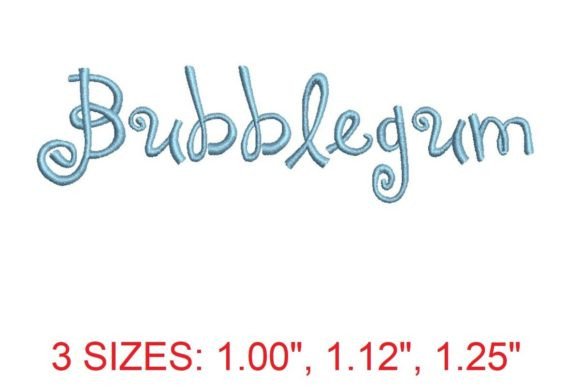
Bubblegum Font: A Sweet Addition for Your Etsy Shop
As an experienced embroidery seller, I'm always on the lookout for fresh, versatile designs that can elevate my product offerings. The Bubblegum Font from Creative Fabrica caught my attention for its playful yet professional aesthetic. With meticulous stitch work and flawless digitization, each creation showcases impeccable craftsmanship. Whether you're a seasoned embroiderer or a beginner, Bubblegum empowers you to add a touch of whimsy to your handmade products.
What Makes Bubblegum Font Unique?
Bubblegum Font exudes a fun, youthful vibe that feels both modern and nostalgic. Its rounded, bubbly letters give it a soft, approachable look that’s perfect for a range of products. This design isn’t just cute—it has the potential to make your items stand out in a crowded market. It's ideal for anything that needs a little extra charm, whether it's a personalized gift or a trendy tote bag design.
The font’s visual personality leans toward playful and feminine, making it especially appealing for back-to-school items, baby embroidery, and seasonal merchandise. However, its clean lines and high-quality digitization also allow it to blend well with more sophisticated styles, offering versatility for different customer segments.
Best Suited For: Back To School & Personalized Gifts
Given its title and overall style, Bubblegum Font is particularly well-suited for back-to-school products. Think embroidered sweatshirts, backpacks, and lunch boxes—items that parents and kids alike would find appealing. The font’s readability at smaller sizes makes it a great choice for tags, name tags, and custom apparel labels.
It also shines as a personalized gift option. Embroidered baby blankets, kitchen towels, and aprons featuring this font can be tailored to individual preferences, adding a unique touch that customers will appreciate. The font’s softness pairs well with pastel thread colors, which can enhance the overall aesthetic of these items.
Supporting Product Ideas
Bubblegum Font can support a wide array of product ideas, from Etsy listings to craft fair items. Here are some specific ways it can help:
- Boutique merchandise: Use it on embroidered patches, pillow covers, and caps to create a cohesive, stylish line of products.
- Small batch apparel: Add it to t-shirts, sweatshirts, and tote bags for a custom look that appeals to fashion-conscious buyers.
- Handmade home decor: Incorporate it into kitchen towels, wall art, and decorative pillows for a sweet, personalized touch.
- Seasonal collections: Pair it with holiday-themed elements to create limited-edition items that can drive sales during specific times of the year.
Enhancing Your Listings and Marketing
One of the key benefits of Bubblegum Font is how it can help your products feel more giftable and professional. The design’s clarity and consistency make it easy to photograph on real fabric, which is crucial for online shoppers who can't see the item in person. A well-stitched, visually appealing design can significantly boost your listing’s performance on Etsy and other platforms.
Consider using printable mockups to showcase how the font looks on different items before finalizing your listings. This helps you visualize the end result and ensures that the design meets your quality standards. Additionally, testing the stitch density and hoop size is essential to avoid issues during production.
Practical Seller Notes
Before adding Bubblegum Font to your product collection, there are a few practical steps you should take:
- Test the design: Create a sample stitch-out to see how it looks on different fabrics and thread colors.
- Photograph it on real fabric: This helps you understand how the design translates to actual products and how it might appear in your listings.
- Compare thread color options: Choose colors that complement the font’s style and enhance the overall look of your items.
- Check readability at thumbnail size: Ensure the font remains legible even when viewed on small screens.
- Review stitch density: A balanced density ensures the design is durable without being too heavy or dense.
- Confirm hoop size: Make sure the design fits within your embroidery machine’s hoop size for ease of use.
By taking these steps, you can confidently incorporate Bubblegum Font into your craft business and digital embroidery file offerings. It’s a valuable addition to any embroidery file library, especially for those looking to expand their product range with something both creative and commercially viable.
Final Thoughts
Bubblegum Font offers a unique blend of charm and professionalism that can enhance a variety of handmade products. Whether you’re creating custom apparel, embroidered patches, or personalized gifts, this design has the potential to elevate your offerings and attract a wider audience. As with any machine embroidery design, it’s important to test and evaluate it thoroughly before committing to large-scale production.
For small shop owners and creative entrepreneurs, Bubblegum Font is a worthwhile investment that can help you stand out in a competitive market. With its playful yet polished look, it’s ready to bring a touch of sweetness to your next project.